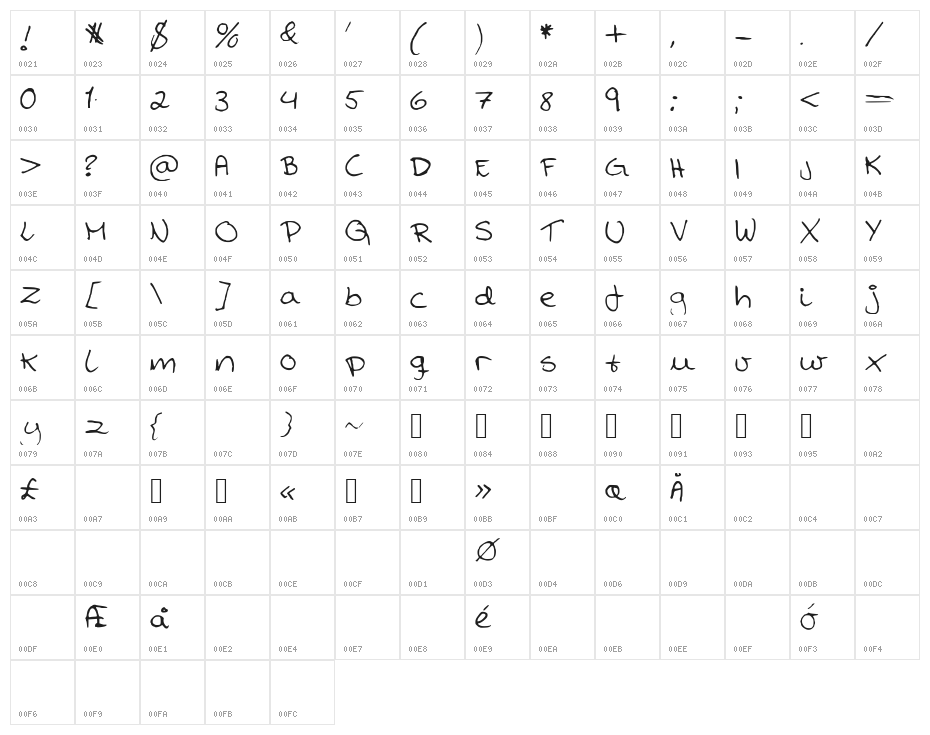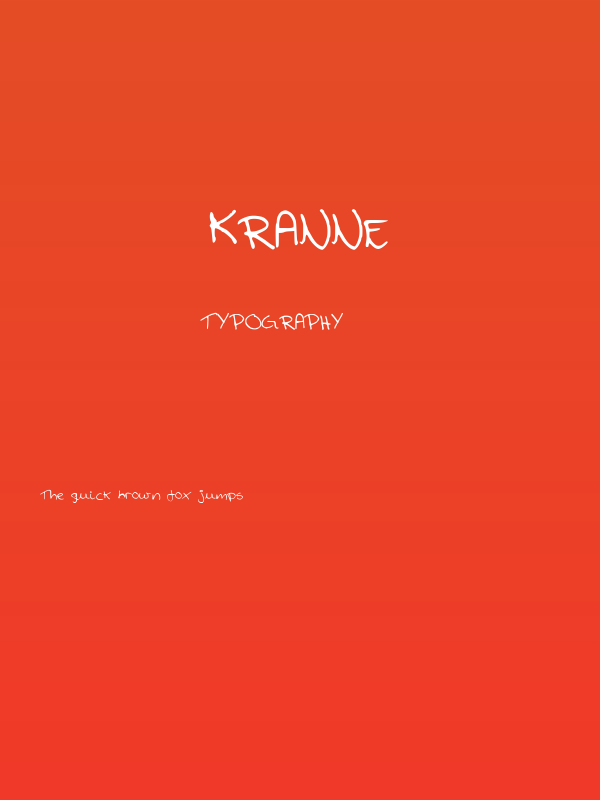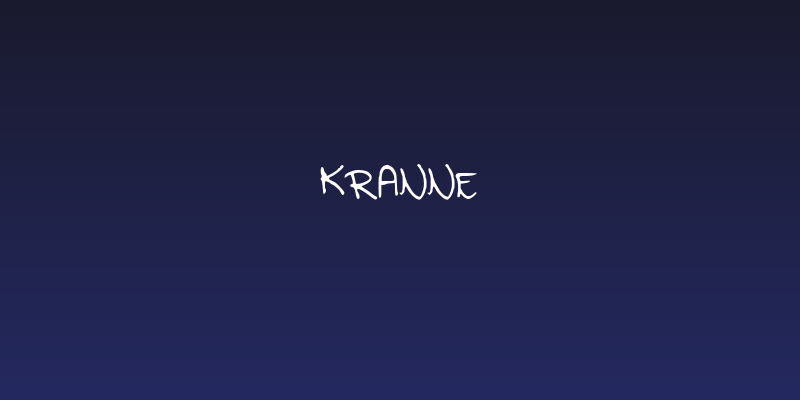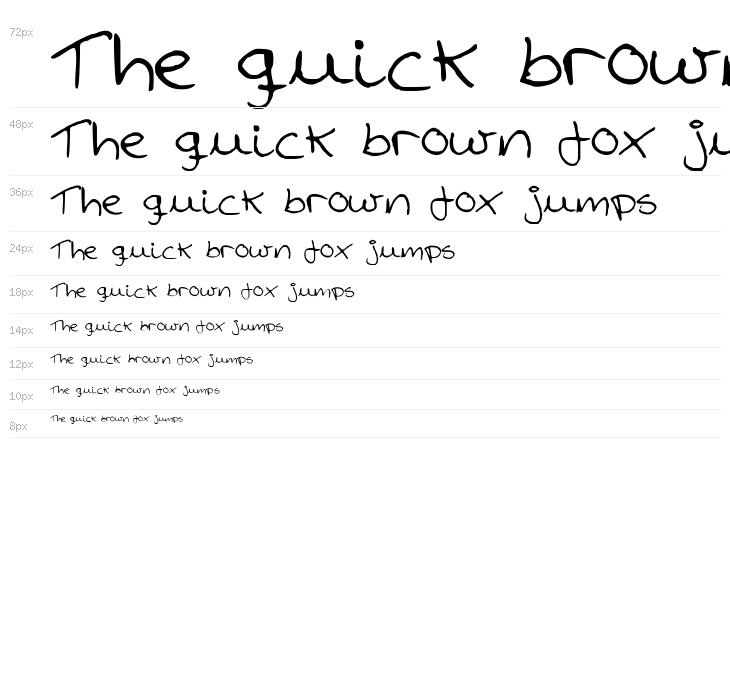
Kranne Font
Kranne Description
This font exhibits a playful and casual handwritten style, characterized by its irregular strokes and organic flow. The letters appear as if they were drawn with a marker, giving them a personal and informal touch. The uppercase and lowercase letters maintain a consistent style, with rounded edges and varying line thickness that adds to the font's dynamic appearance. The numerals and special characters follow the same aesthetic, ensuring a cohesive look across all elements. This font's unique charm makes it suitable for projects that require a personal or artistic flair.
KRANNE UPPERCASE
KRANNE LOWERCASE
KRANNE OTHER CHARS
| Overall Style | Casual, Artistic |
| Use Case | Headlines, Logos, Artistic projects |
| Proposed Projects | Ideal for greeting cards, personal blogs, artistic posters, and creative branding projects. |